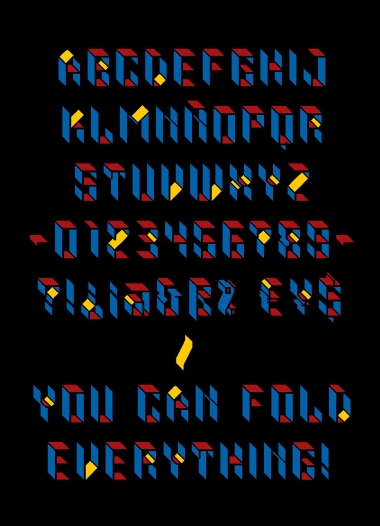
Cool 3D letters. Very consistent, very disciplined. 10/10
To achieve a full set with no odd glyph will never be a poor little adventure. To achieve a full set with style and consistency is a great adventure, and you are a great adventurer.
very nicely done. and the end result is striking. congrats.
Nice effect. Color it in highlights and shades, please.
I venture to present you a first test of this typography with three basic colors, though I know that the result can be improved and so I'll show you soon... Thank you very much again for all your encouragement.
Nice sample, it really highlights the font and I can't wait to see the next one. By the way, I dig the ampersand: perfectly crafted.
Nice work - and a good sample :) 10/10